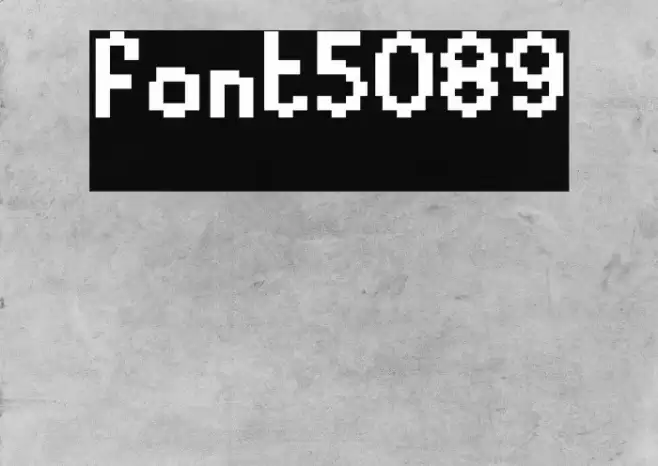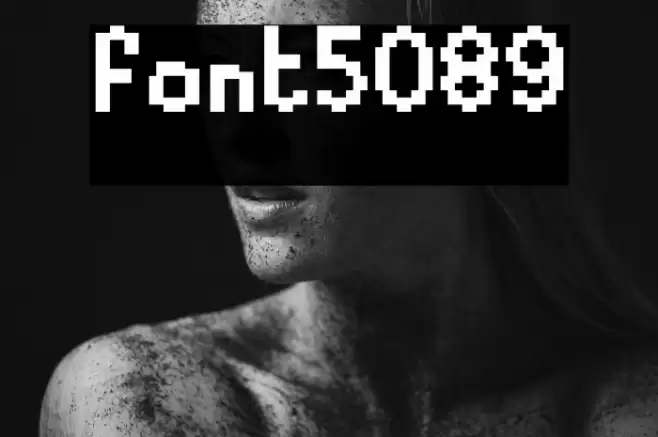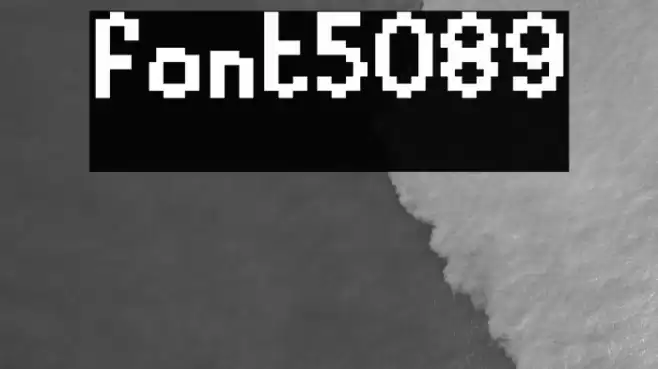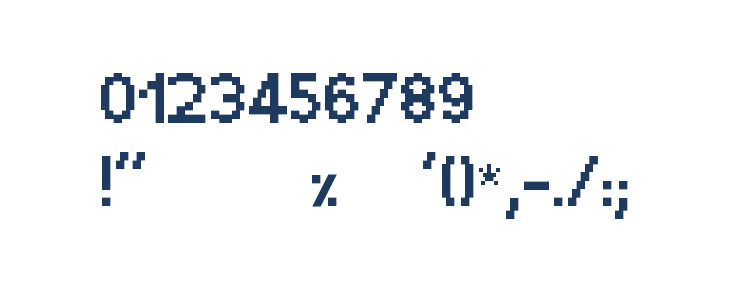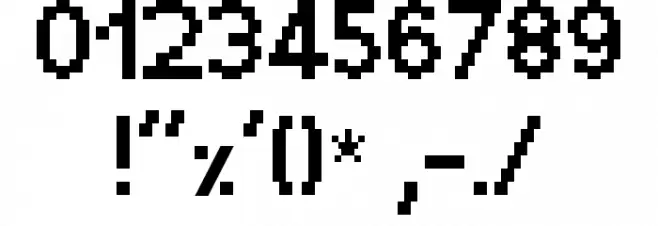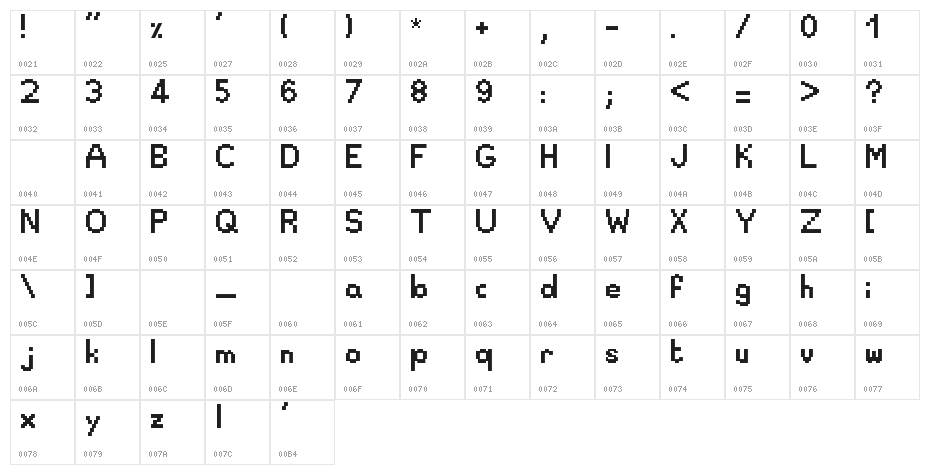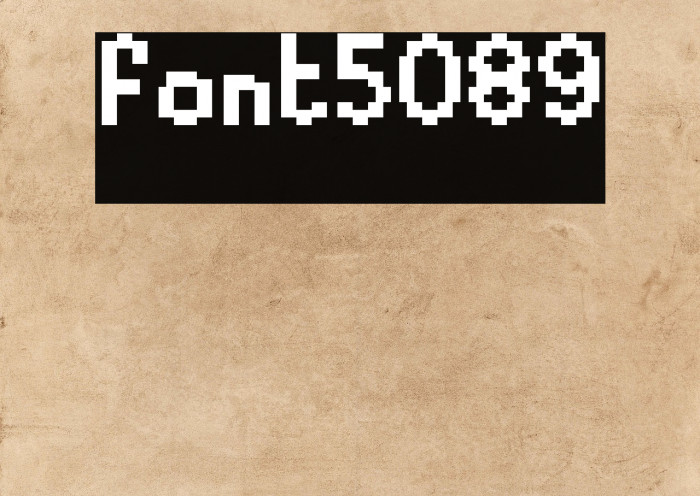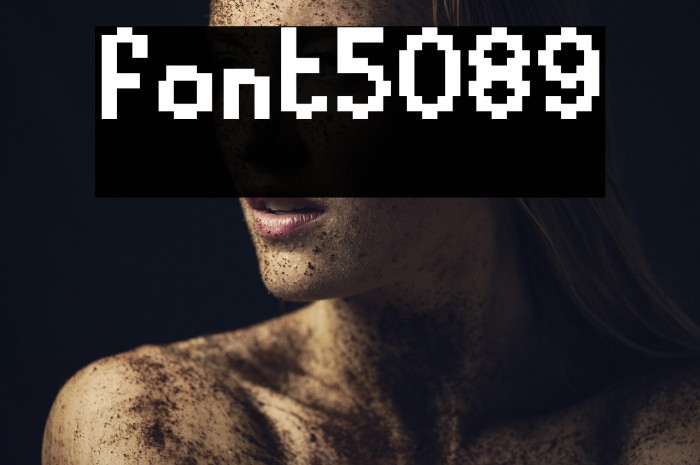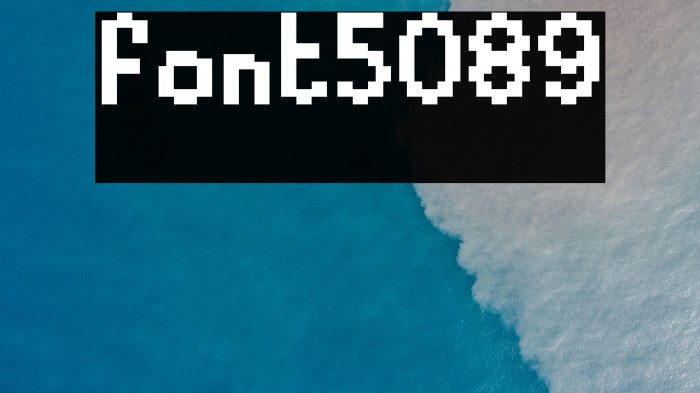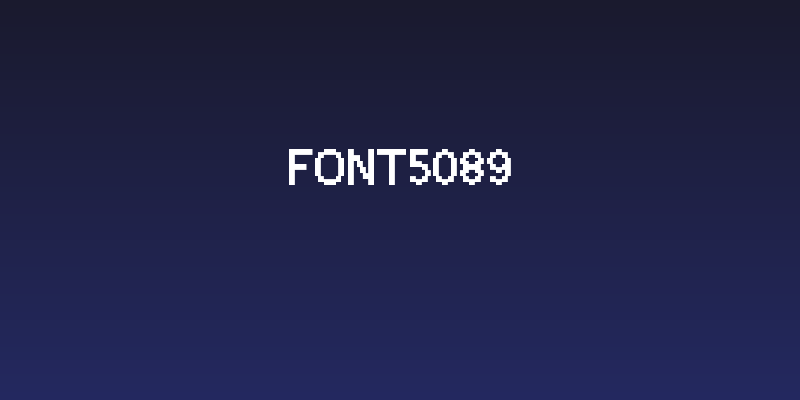
font5089 Font
font5089 Description
This font features a pixelated, blocky design reminiscent of early digital displays and retro video games. Each character is constructed with a grid-like appearance, giving it a distinctly digital and vintage feel. The uppercase and lowercase letters maintain a consistent height, contributing to a uniform and cohesive look. Numbers and special characters follow the same pixelated style, ensuring visual harmony across all elements. The font's simplicity and geometric structure make it highly legible, even at smaller sizes, while its nostalgic aesthetic adds a playful and unique touch to any design.
A pixelated, retro-style font with a blocky, digital appearance from Uncategorized fonts.
- Proposed Projects: Ideal for retro-themed video games, digital art projects, and designs that require a nostalgic or playful touch.
- Overall Style: Vintage
- Use Case: Logos, Headlines, Digital Art